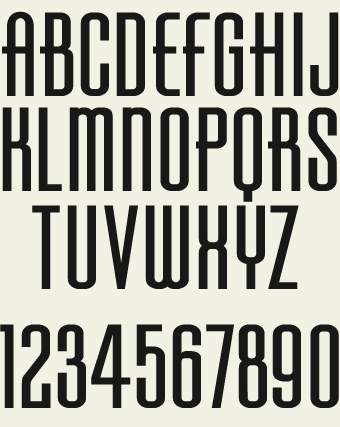
Classic sign painter's letterstyle from John Studden featuring a 30's/40's retro feel. Easy to read. Includes numbers, full punctuation & accent characters.